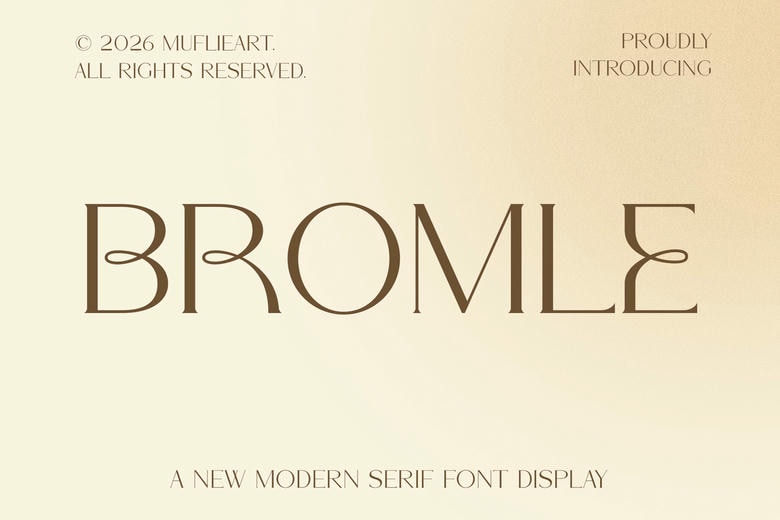
Bromle Font
Bromle is a modern serif display font that mixes classic serif style with a playful, modern feel. Its slim strokes and unique looping ends create a look that feels light, sophisticated, and creative.
With its tall x-height and clear spaces, Bromle works well for boutique branding, custom stationery, luxury content, and stylish web headers. It brings a polished, handcrafted feel that helps your designs stand out and be remembered.
Bromle Serif Font